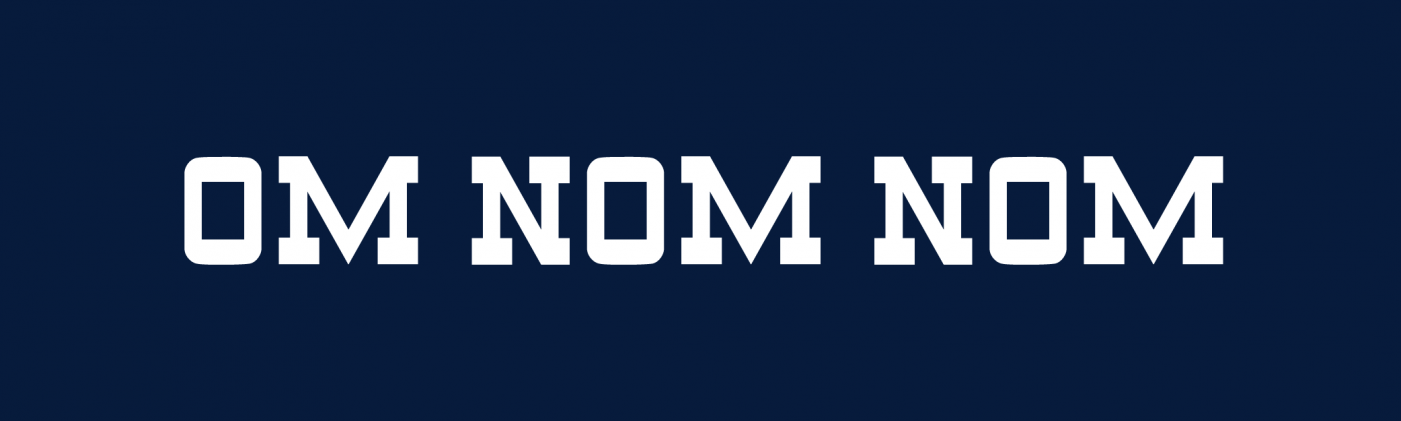
I'm looking for these two fonts, or something very close to it (Om nom Nom)
My mind immediately went to Roboto Slab, but the weight of the letters and the shape of the 'O', among other details, are completely different. I'm trying to recreate a logo as a vector, and I need the exact font or a close match.
I'm not able to give any more information or hints for when it's from. Any help would be highly appreciated.
True, I didn't even know 'Slab Fonts' were a category on their own. Thank you, this helps a lot, though I still can't be sure it's the exact same font